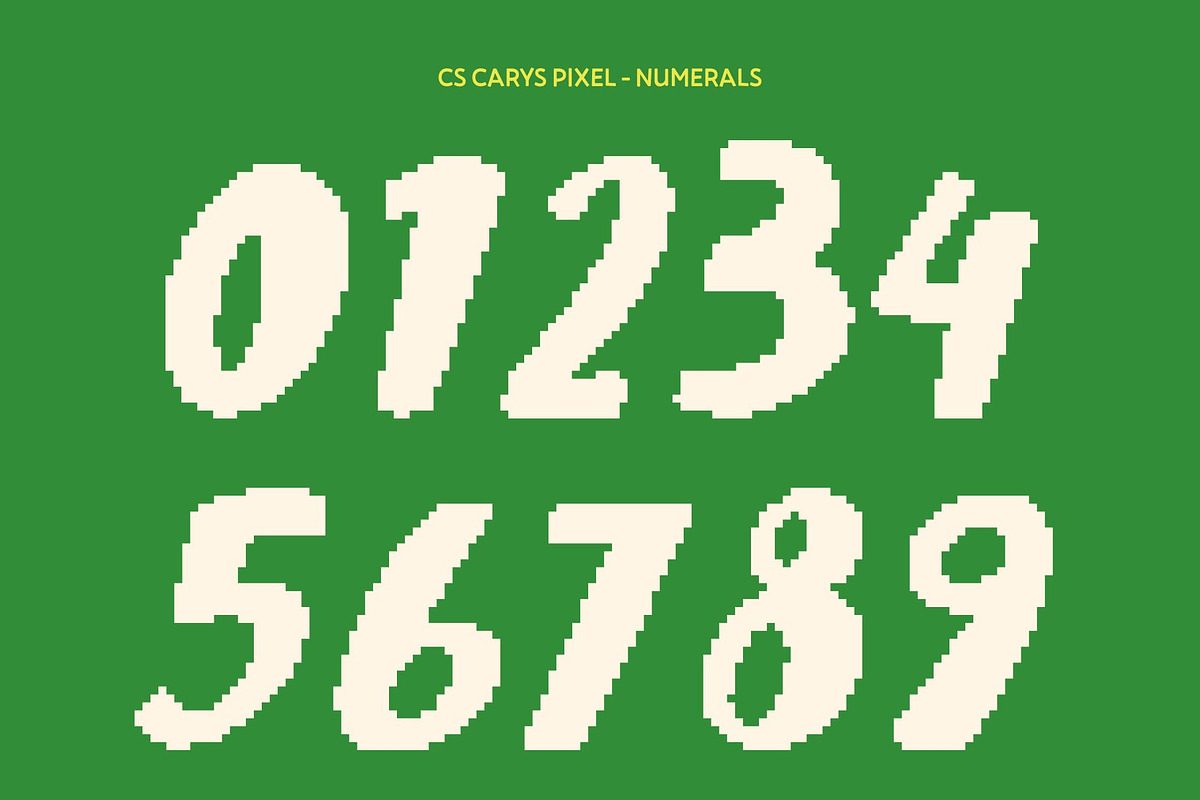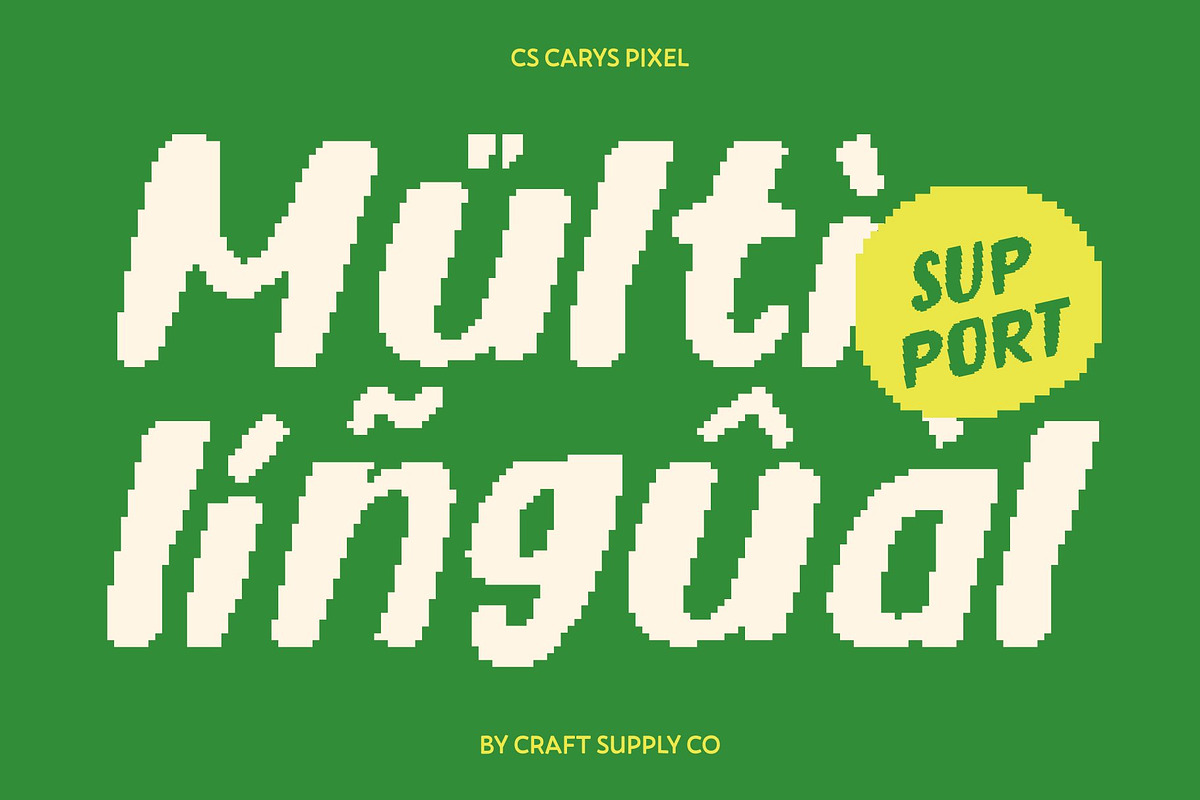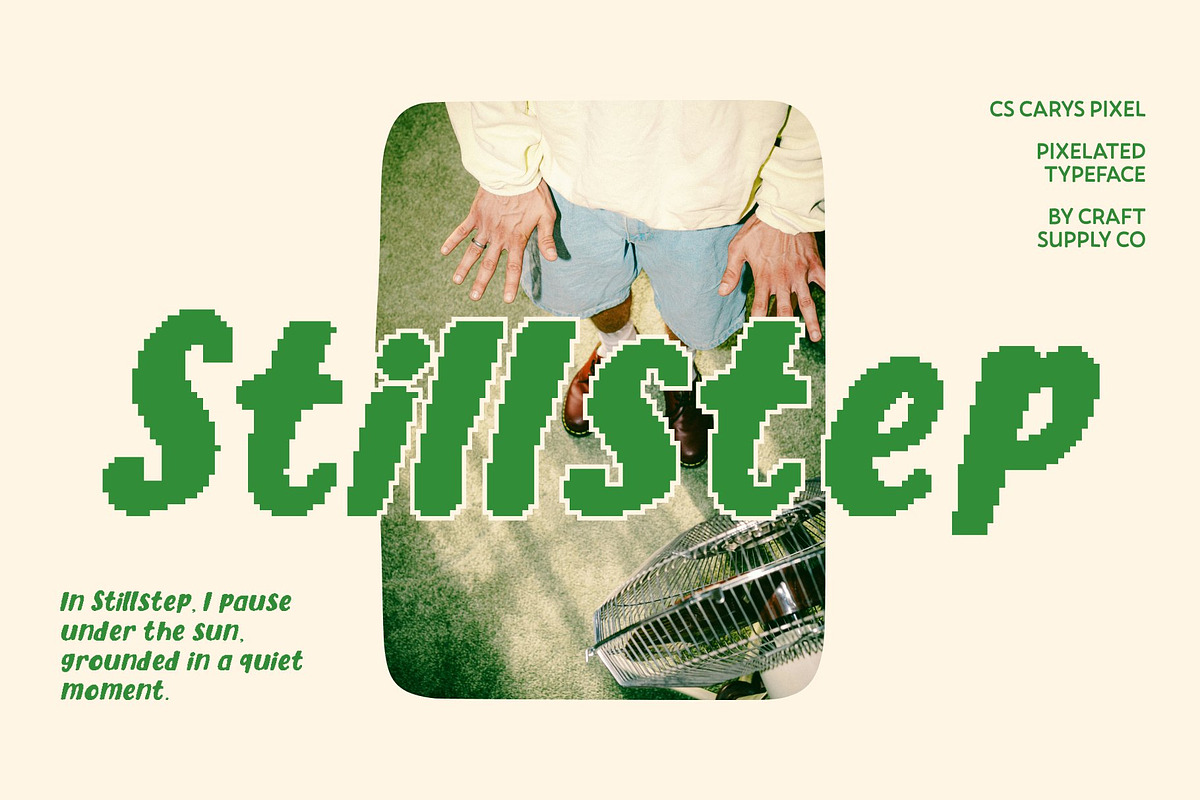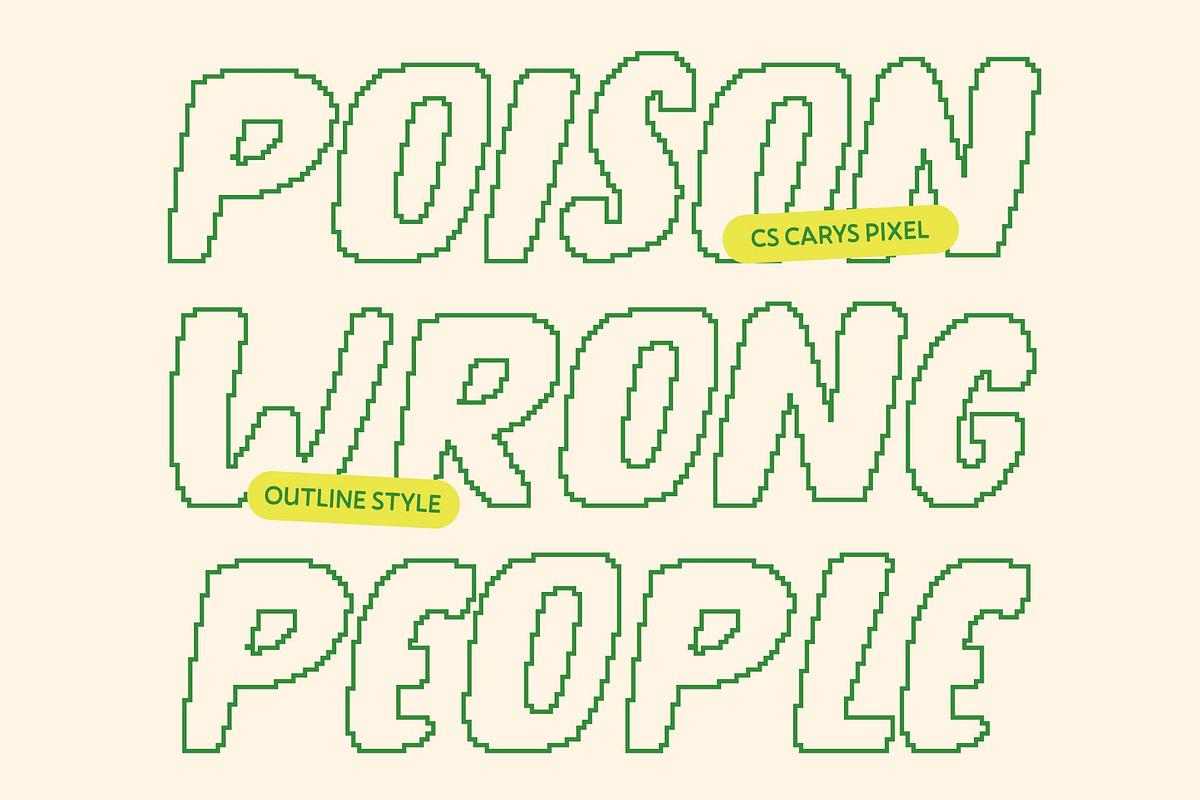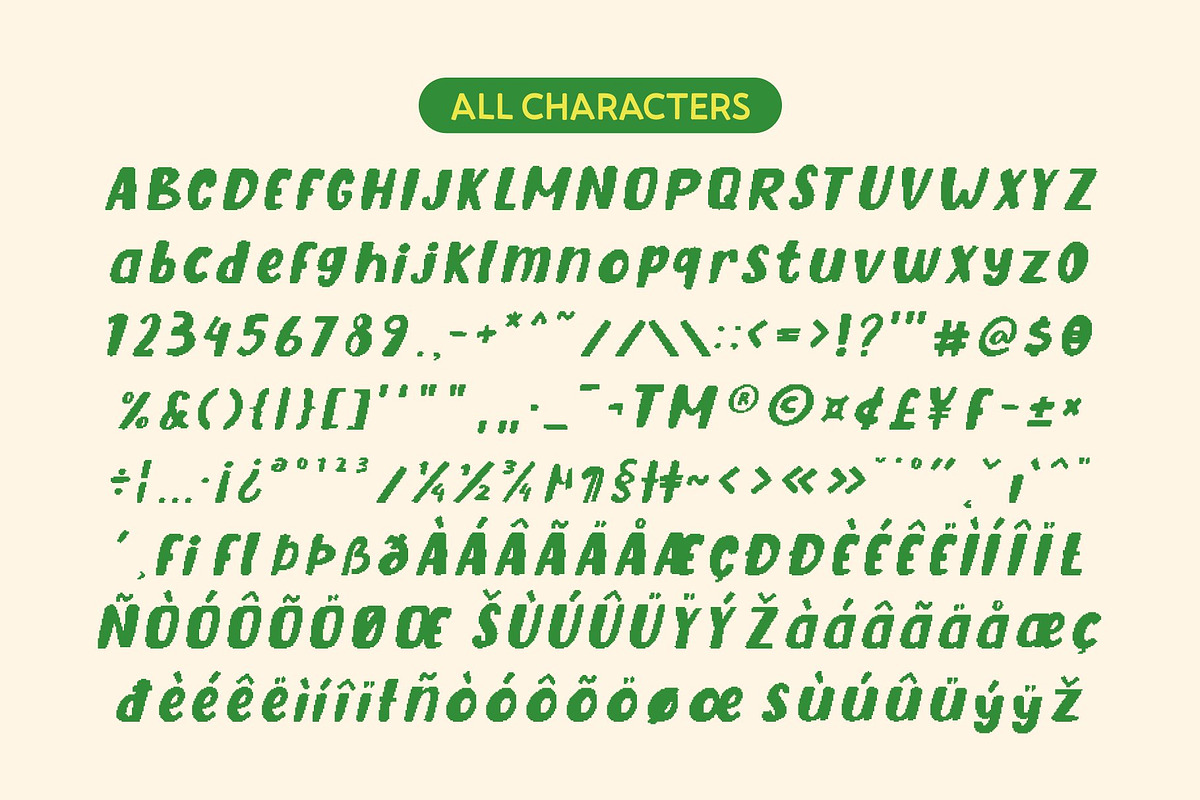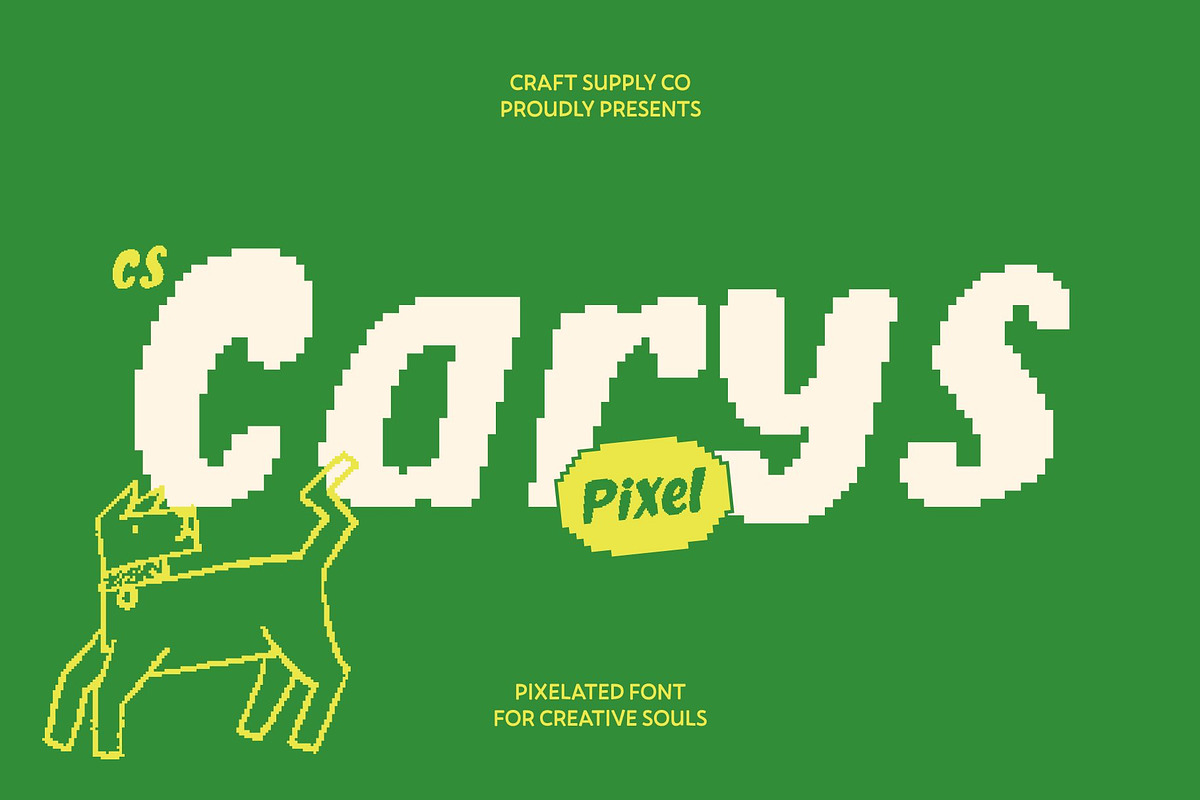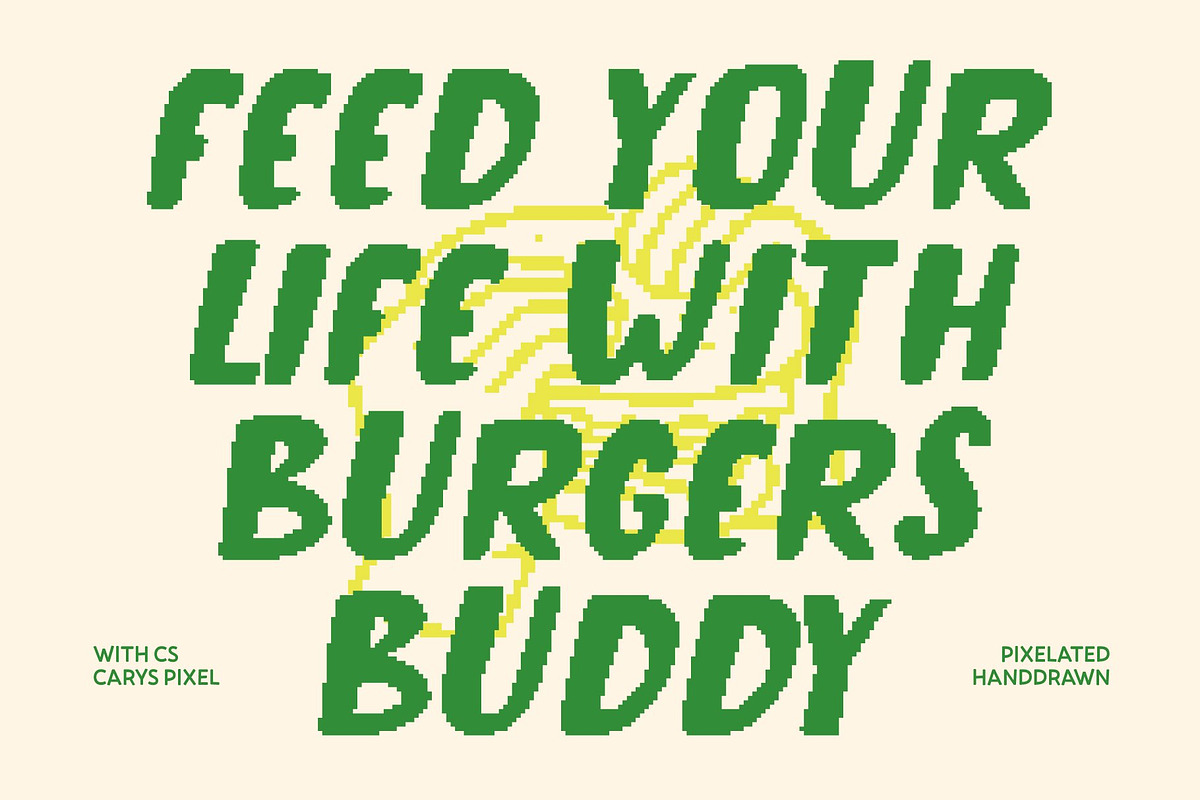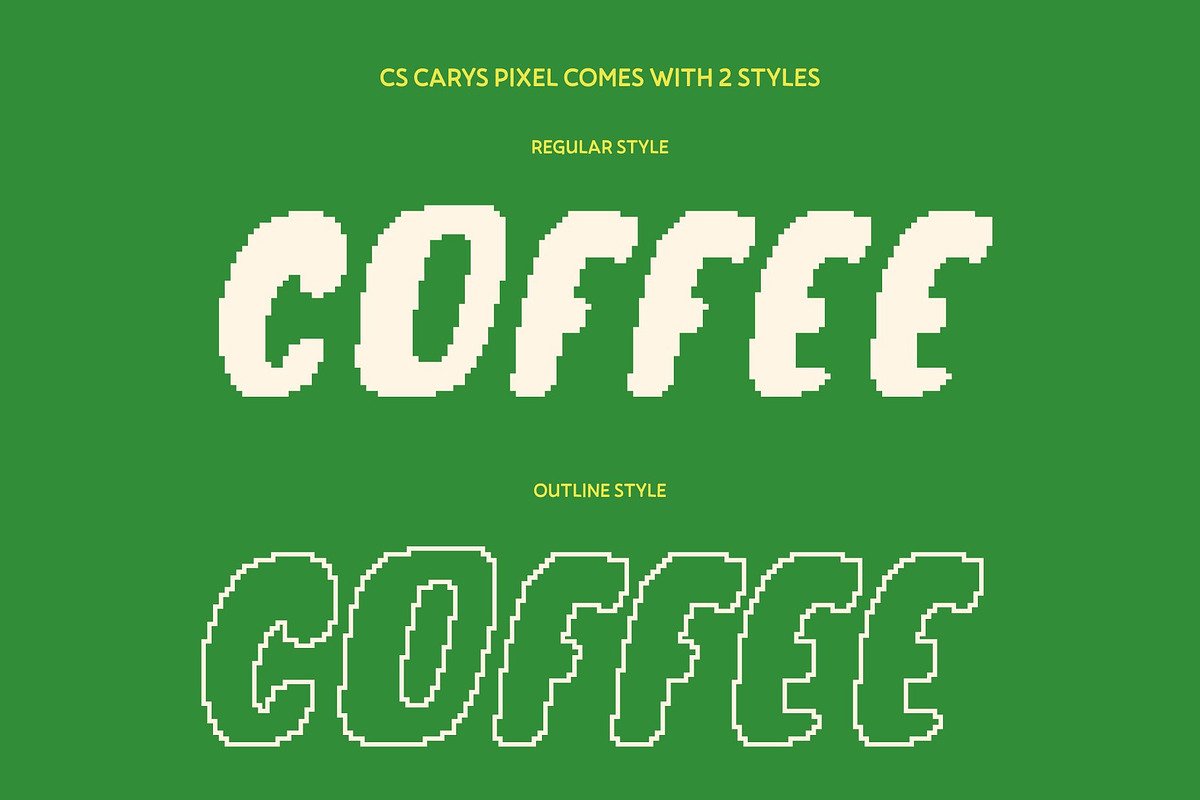
CS Carys Pixel
CS Carys Pixel – Playful Energy in Every Stroke
Vibrant Pixel Personality for Youthful Designs This is a playful display font bursting with fun, creativity, and digital charm. Built with bold strokes and friendly curves, its pixel-inspired construction gives each letter a lively, animated feel like classic retro games brought into the modern design world.
Rounded Pixel Forms for a Cheerful, Retro-Digital Impression Every shape is crafted with smooth, rounded edges while staying true to a pixel grid structure. This combination creates a cheerful, approachable personality with a nostalgic digital twist. The pixel style adds visual rhythm and charm, making the font feel playful yet structured ideal for greeting cards, fun posters, kids’ content, and retro-tech inspired visuals.
Versatile for Fun Branding and Creative Digital Concepts From casual logos and lifestyle products to digital graphics and social media content, this font adapts effortlessly across creative projects. Its bold proportions ensure clear readability, while the pixel details inject personality and movement. It’s a great choice for designers looking for a font that feels energetic, friendly, and visually memorable.
Perfect for Modern, Joyful, and Pixel-Inspired Communication This font brings warmth, enthusiasm, and a touch of old-school digital nostalgia to modern design. More than just a typeface, it acts as a cheerful visual voice perfect for youth branding, digital promotions, playful interfaces, and creative storytelling that wants to feel fun, upbeat, and full of life.
- CS Carys Pixel Regular
- CS Carys Pixel Outline